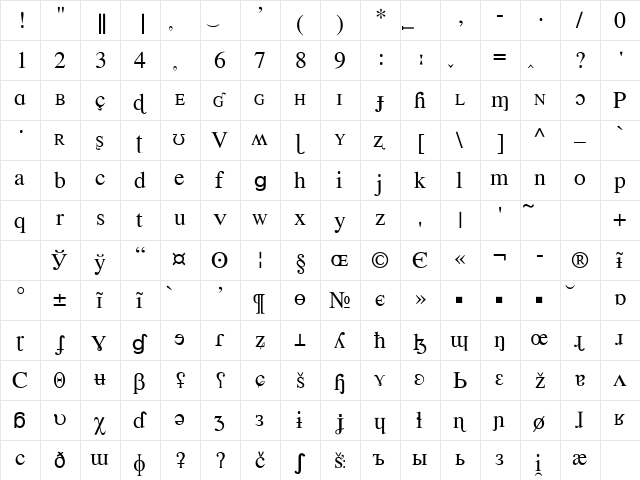
Times-Trn 3 Normal
Design Context for Times-Trn 3 Typeface
Times-Trn 3 is a composed and adaptable typeface that performs quietly and consistently across a wide range of design contexts.